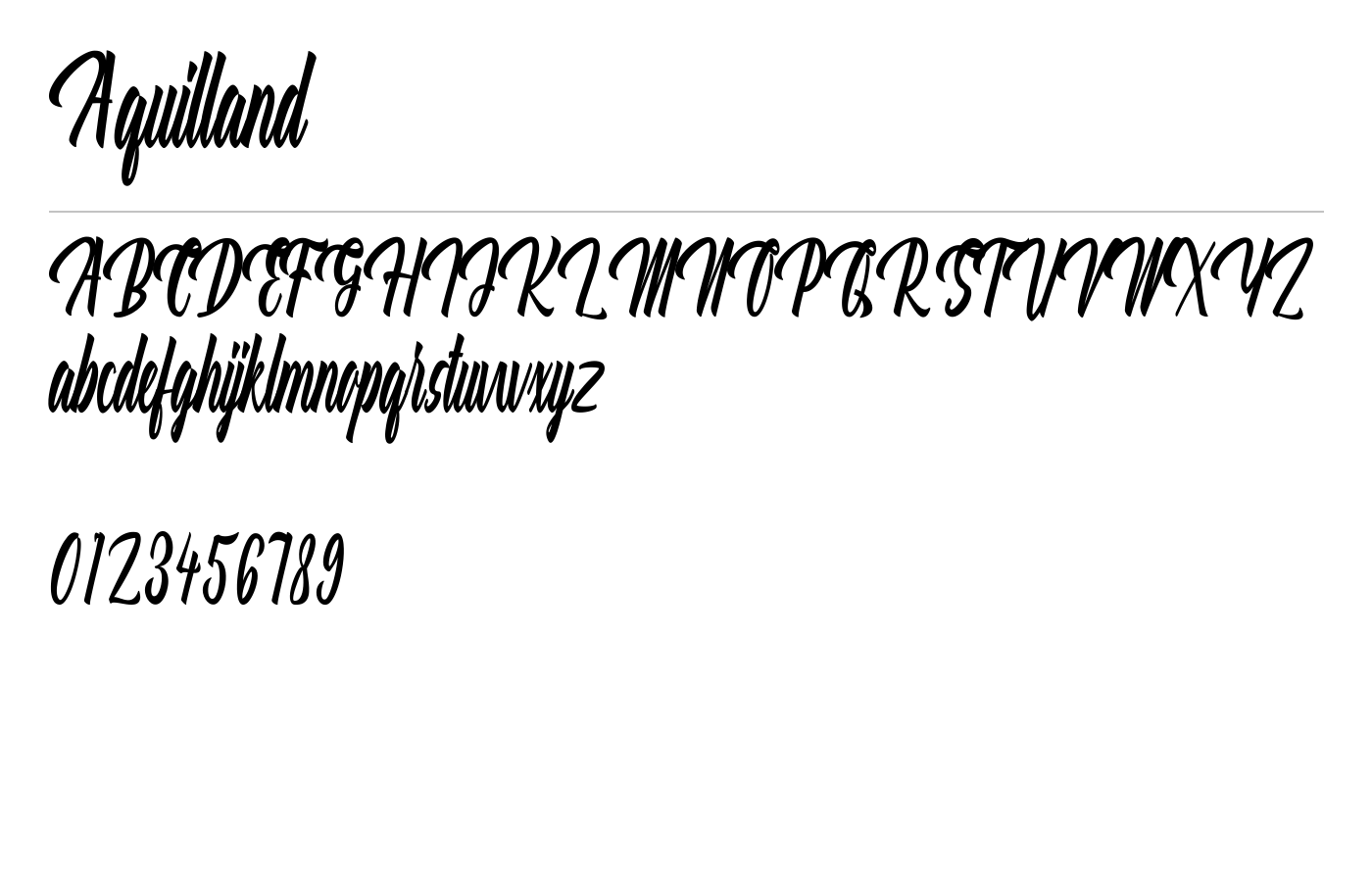
Aquilland is a bold, condensed script font with a strong calligraphic influence, characterized by its high contrast strokes and elegant, flowing letterforms. Its tall, narrow characters with sharp, stylish curves lend a dynamic and sophisticated feel, making it ideal for upscale branding, logos, and headline use where a touch of luxury and personality is desired. This font suits creative projects that want to convey elegance and flair while maintaining readability in display settings.
Aquilland Font